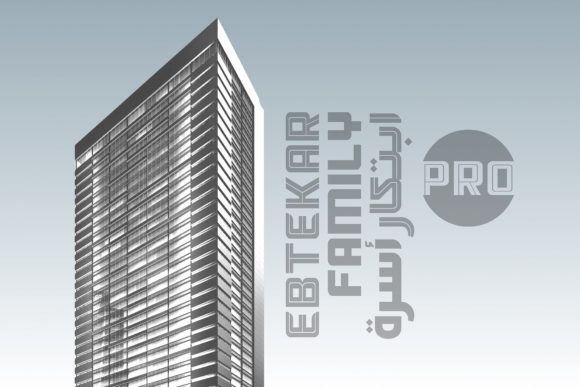
Introducing Ebtekar Pro Font: A Retro Family Display Font for Latin and Arabic Scripts
Ebtekar Pro Font is a unique and versatile retro family display font that seamlessly combines Latin and Arabic scripts. Its geometric structure gives it a distinct scientific, industrial, and technological atmosphere, making it perfect for designs that require a modern and edgy look.
Key Features of Ebtekar Pro Font
- Geometric Structure: Ebtekar Pro Font boasts a geometric structure that lends it a scientific, industrial, and technological feel. This makes it ideal for designs that require a modern and cutting-edge look.
- Latin and Arabic Scripts: Ebtekar Pro Font supports both Latin and Arabic scripts, making it a versatile choice for designs that require multilingual support.
- Character Set: The font provides a comprehensive character set that includes Latin, Arabic, Farsi, Urdu, and Pashto languages.
- Two Styles: Ebtekar Pro Font comes in two different styles: normal and inline. This allows designers to experiment with different looks and feels for their designs.
The Design and Structure of Ebtekar Pro Font
Ebtekar Pro Font is designed with a focus on simplicity and legibility. Its geometric structure is characterized by clean lines, simple shapes, and a minimalist approach. This makes it perfect for designs that require a modern and edgy look.
The font’s design is also influenced by the principles of retro typography. The bold and geometric shapes give it a nostalgic feel that is reminiscent of classic fonts from the past.
Ebtekar Pro Font in Action
Ebtekar Pro Font can be used in a variety of design applications, from posters and flyers to logos and branding materials. Its versatility and legibility make it perfect for designs that require a modern and edgy look.
Here are a few examples of how Ebtekar Pro Font can be used:
- Posters and Flyers: Ebtekar Pro Font can be used to create eye-catching posters and flyers that require a modern and edgy look.
- Logos and Branding: The font can be used to create logos and branding materials that require a unique and memorable look.
- Digital Media: Ebtekar Pro Font can be used in digital media, such as social media graphics, website headers, and mobile app interfaces.
Benefits of Using Ebtekar Pro Font
Ebtekar Pro Font offers a range of benefits for designers and businesses. Here are a few:
- Unique and Memorable: Ebtekar Pro Font provides a unique and memorable look that can help designs stand out from the crowd.
- Versatile: The font supports multiple languages and can be used in a variety of design applications.
- Legible: Ebtekar Pro Font is designed with legibility in mind, making it perfect for designs that require clear and easy-to-read text.
Ebtekar Pro Font is a versatile and unique retro family display font that is perfect for designs that require a modern and edgy look. Its geometric structure, comprehensive character set, and two different styles make it a valuable asset for designers and businesses.
Whether you’re looking to create posters, logos, or digital media, Ebtekar Pro Font is a great choice. Its legibility, versatility, and memorable look make it an excellent addition to any design project.
Technical Specifications
- Font Type: Ebtekar Pro Font is a sans-serif font.
- Language Support: Latin, Arabic, Farsi, Urdu, and Pashto.
- Styles: Normal and Inline.
- What is Ebtekar Pro Font? Ebtekar Pro Font is a retro family display font that supports Latin and Arabic scripts.
- What languages does Ebtekar Pro Font support? Ebtekar Pro Font supports Latin, Arabic, Farsi, Urdu, and Pashto languages.